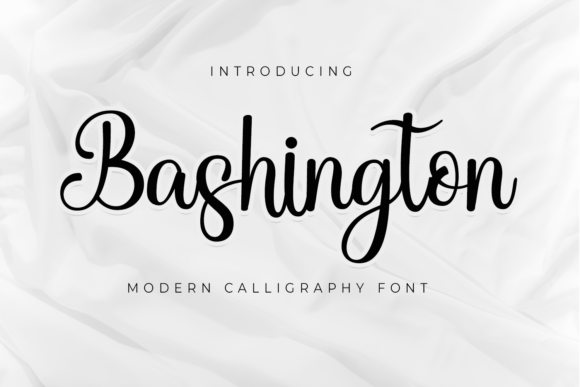
Introducing Bashington Font: The Enchanting Handwritten Script That Will Make Your Designs Sing
In the world of typography, Bashington Font stands as a radiant star, captivating hearts with its delicate strokes and sweet handwritten charm. This remarkable script font is the brainchild of the talented motokiwo, a renowned font designer with a knack for creating fonts that resonate with emotion and authenticity.
With Bashington Font, you have the power to transform your designs into breathtaking works of art. Picture the allure of wedding invitations adorned with Bashington's elegant curves, the warmth of stationary art infused with its heartfelt charm, the vibrancy of social media posts that pop with its eye-catching presence, and the sweetness of greeting cards that carry your heartfelt messages with a touch of whimsical delight.
Fall in love with the authentic feel of Bashington's every letterform, meticulously crafted to evoke a sense of genuine human connection. Its graceful lines dance across the page, leaving a trail of beauty and intrigue that will leave your audience spellbound. Whether you're a seasoned designer or just starting your creative journey, Bashington Font will elevate your projects to new heights of sophistication and charm.
So, why settle for ordinary fonts when you can embrace the magic of Bashington? Let its delicate strokes ignite your imagination, let its sweet handwritten style add a touch of warmth to your designs, and let its authentic feel leave a lasting impression on your audience.
Bashington Font: The Perfect Choice for Designers Who Dare to Dream
With Bashington Font at your fingertips, you'll discover a world of creative possibilities. Its versatility knows no bounds, making it the ideal choice for a myriad of design projects. From captivating magazine covers that demand attention to heartfelt wedding invitations that celebrate love, from charming social media posts that engage your audience to adorable greeting cards that convey your warmest wishes, Bashington Font is your trusted companion, transforming your ideas into visual masterpieces.
Imagine the impact of your designs when infused with Bashington's enchanting allure. Your wedding invitations will become cherished keepsakes, your social media posts will garner likes and shares, your greeting cards will spread joy and warmth, and your magazine covers will leave readers eager to delve into the stories within.
Bashington Font: A Symphony of Beauty and Functionality
Not only is Bashington Font a feast for the eyes, but it's also a practical choice for designers who value efficiency. Its carefully crafted letterforms ensure excellent readability, making it perfect for body text, headings, and even logos. The font's delicate strokes maintain their clarity even at small sizes, ensuring your designs remain visually appealing across various platforms and media.
So, whether you're a seasoned professional seeking to elevate your work or a passionate hobbyist looking to add a touch of magic to your creative projects, Bashington Font is your ultimate choice. Its beauty, versatility, and functionality make it the perfect tool to captivate your audience and leave a lasting impression.